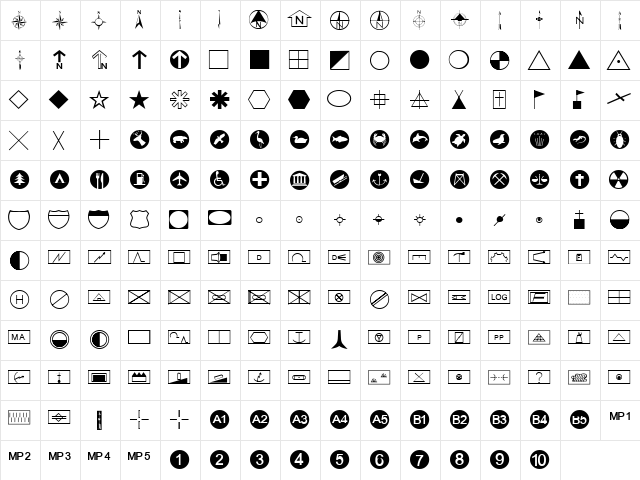
MapSheets Regular Font Preview
MapSheets Regular
MapSheets Regular Font Details
Design Context for MapSheets Typeface
MapSheets takes a measured approach to typography — its balanced proportions and neutral character make it a reliable workhorse for both digital and print work.